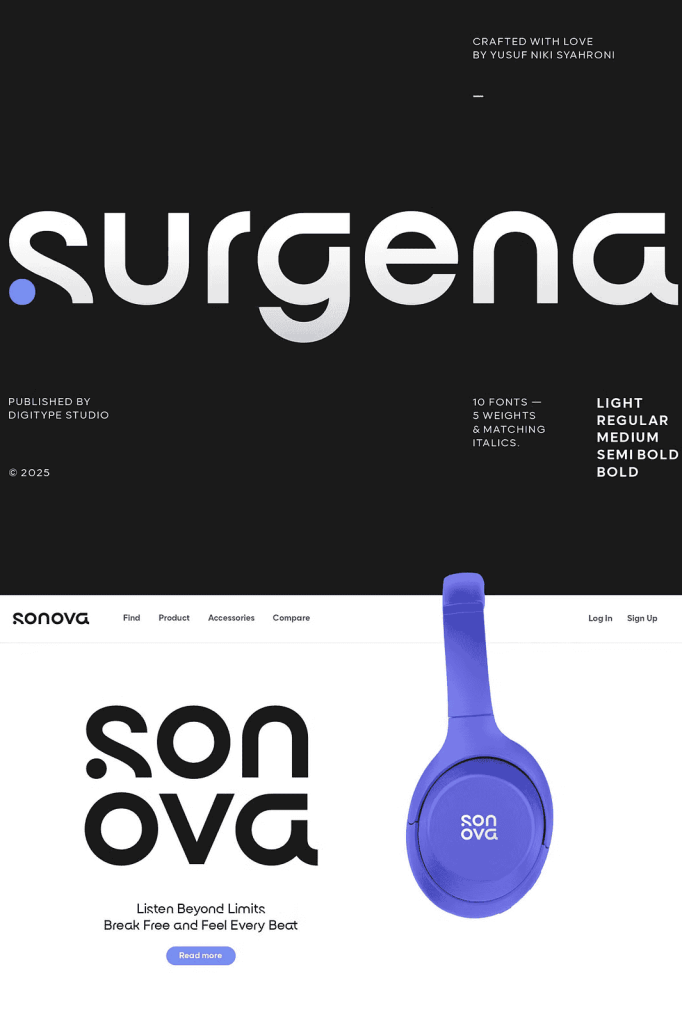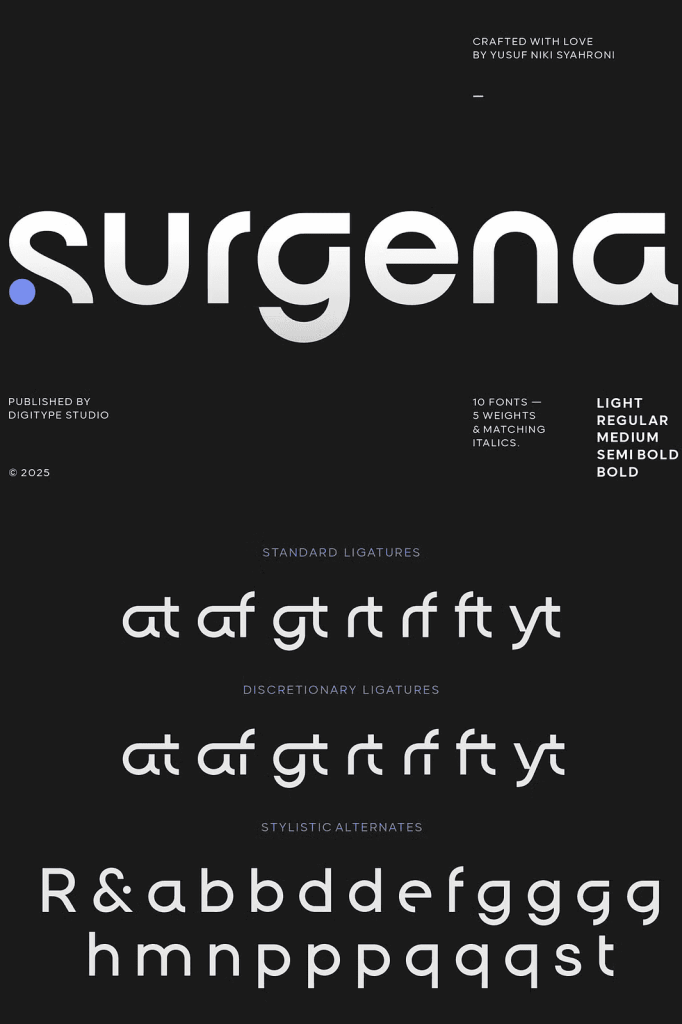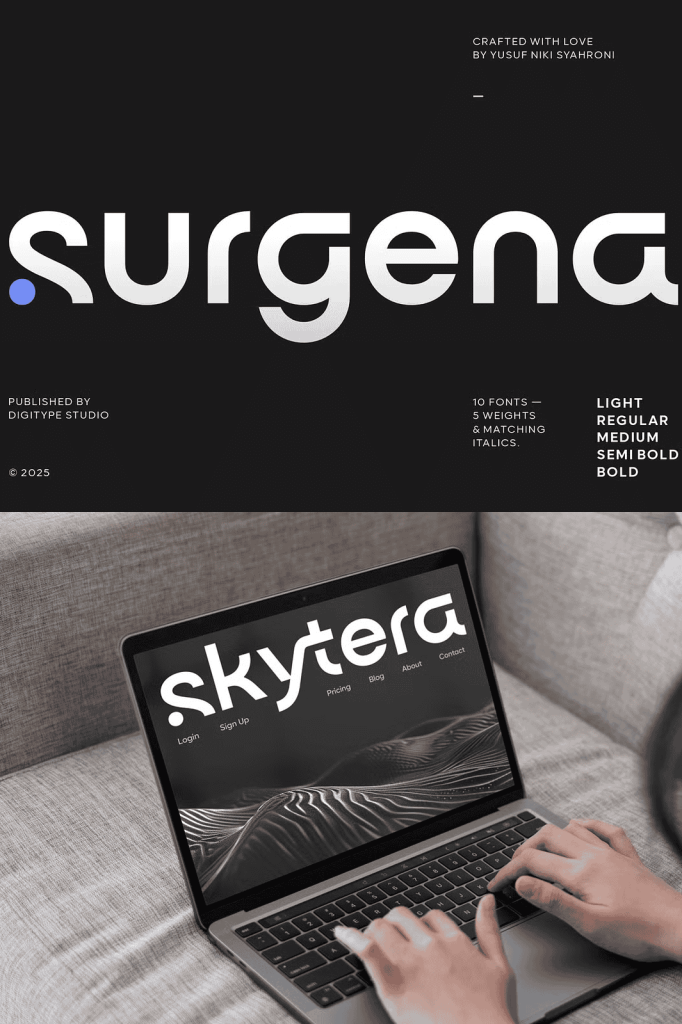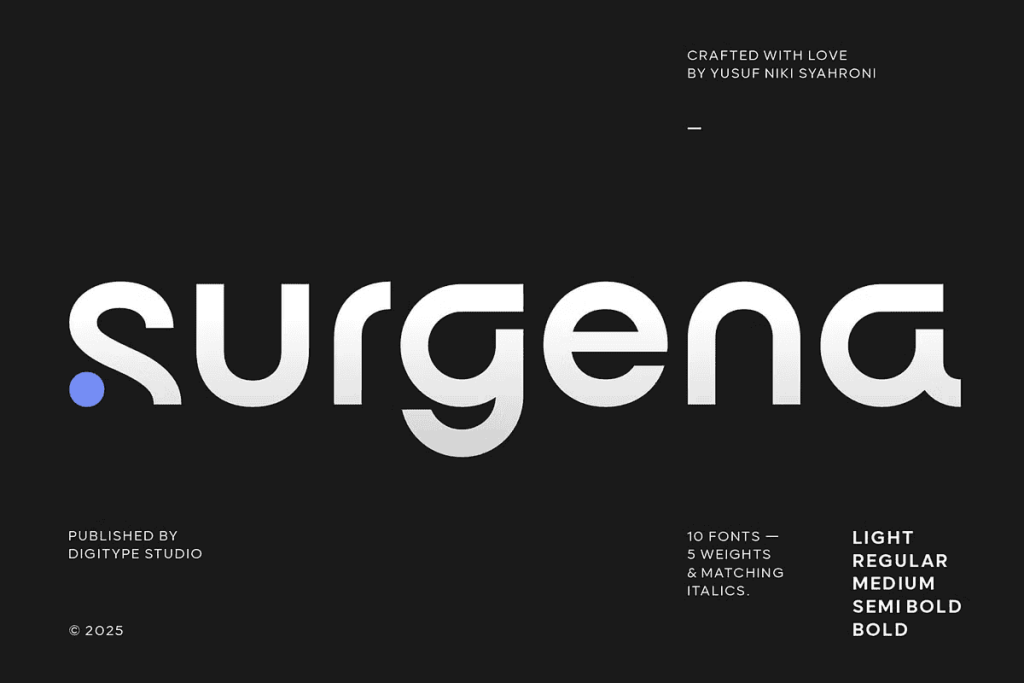
Surgena: A Modern Sans-Serif Font for Professional and Digital Design
Surgena is a modern sans-serif font designed to deliver clarity, sophistication, and contemporary appeal across a wide range of creative applications. Built on precise geometric foundations and enhanced with refined detailing, this typeface balances minimalist elegance with strong visual impact. Surgena empowers designers, brands, and content creators to communicate with confidence, precision, and style in both print and digital environments.
Clean Geometry with Refined Minimalism
At the core of Surgena lies a commitment to clean geometry and balanced proportions. Every letterform is carefully constructed to achieve visual harmony while maintaining a modern and approachable aesthetic. The minimalist structure eliminates unnecessary ornamentation, allowing the font to perform effectively in high-impact layouts as well as content-heavy compositions.
Surgena’s geometric consistency ensures smooth readability at various sizes, from large display headlines to small body text. The refined curves, sharp terminals, and well-defined spacing contribute to a polished appearance that feels both contemporary and timeless. This thoughtful design approach makes Surgena a dependable choice for projects that demand visual clarity without sacrificing personality.
Professional, Innovative, and Dynamic Character
Surgena communicates a professional tone while projecting innovation and forward-thinking energy. Its modern construction makes it particularly suitable for brands seeking to establish credibility and relevance in competitive markets. The font’s clean lines and confident stance support messaging that feels authoritative, trustworthy, and future-oriented.
This dynamic character allows Surgena to adapt seamlessly to various industries, including technology, corporate branding, startups, architecture, fashion, and creative studios. Whether used in logos, brand identities, presentations, or marketing materials, Surgena reinforces a strong and consistent visual voice that resonates with modern audiences.
Versatile Weights for Flexible Design Systems
Surgena includes multiple font weights that enable designers to build cohesive and flexible typographic systems. From light and elegant styles to bold and commanding weights, the font supports hierarchy, contrast, and emphasis with ease. This versatility allows designers to create structured layouts that guide the reader’s attention naturally.
The consistent design language across all weights ensures visual unity throughout a project. Headlines, subheadings, body text, and captions work together seamlessly, providing a balanced and professional appearance across websites, editorial layouts, and digital interfaces.
Advanced OpenType Features and Stylistic Alternates
Surgena is equipped with advanced OpenType features that enhance creative freedom and typographic precision. These features allow designers to fine-tune text presentation, improve readability, and add subtle character variations without disrupting the overall aesthetic.
The inclusion of stylistic alternates provides additional customization options, enabling unique visual expressions while maintaining consistency. These alternates are particularly valuable for branding and logo design, where distinctive letterforms can elevate recognition and memorability.
Optimized for Digital and Editorial Use
Designed with modern workflows in mind, Surgena performs exceptionally well across digital platforms and editorial formats. Its clean structure ensures crisp rendering on screens, making it ideal for websites, mobile applications, dashboards, and user interfaces. The font’s readability supports long-form content while preserving a sleek and modern appearance.
In editorial contexts, Surgena enhances layouts with clarity and sophistication. Magazines, reports, brochures, and corporate publications benefit from its balanced proportions and professional tone. The font adapts effortlessly to both minimalist and content-rich designs, ensuring consistent quality across all formats.
A Bold and Sophisticated Typeface for Modern Projects
Surgena stands as a bold yet refined sans-serif font that meets the demands of modern design. Its geometric precision, versatile weights, and advanced typographic features make it a powerful tool for designers who value clarity, flexibility, and elegance. By combining readability with a strong contemporary presence, Surgena supports creative projects that aim to look modern, confident, and sophisticated.
Whether applied to branding, editorial layouts, or digital experiences, Surgena delivers a cohesive and professional typographic solution. It is an ideal choice for designers seeking a modern sans-serif font that performs consistently, communicates effectively, and elevates visual identity across all platforms.